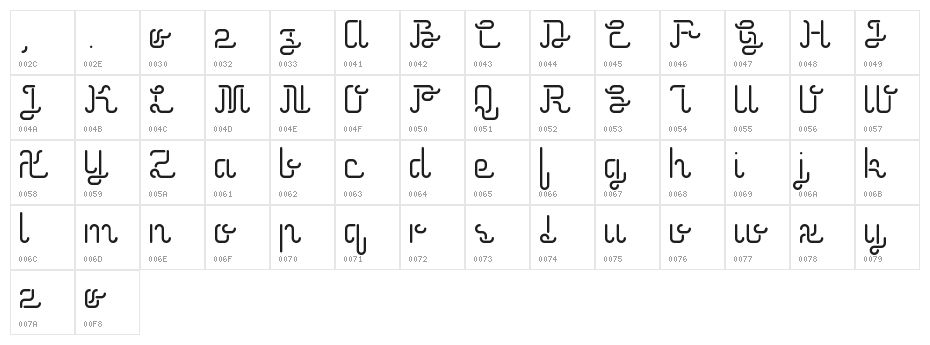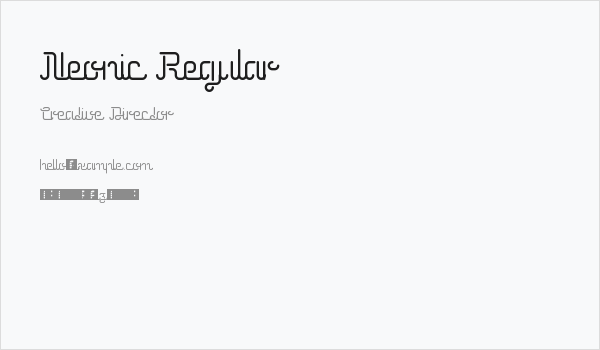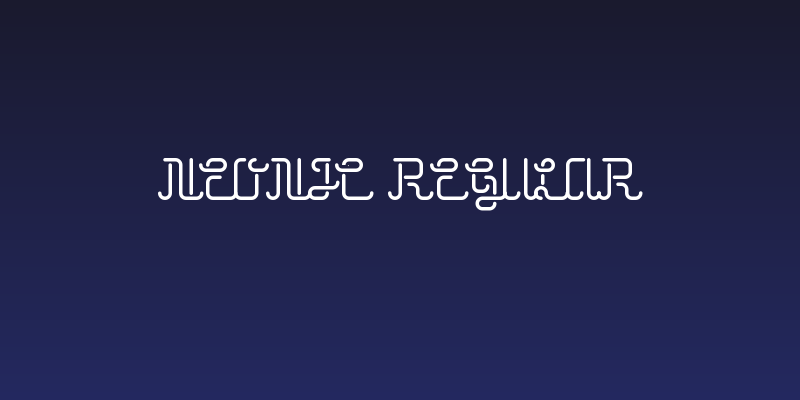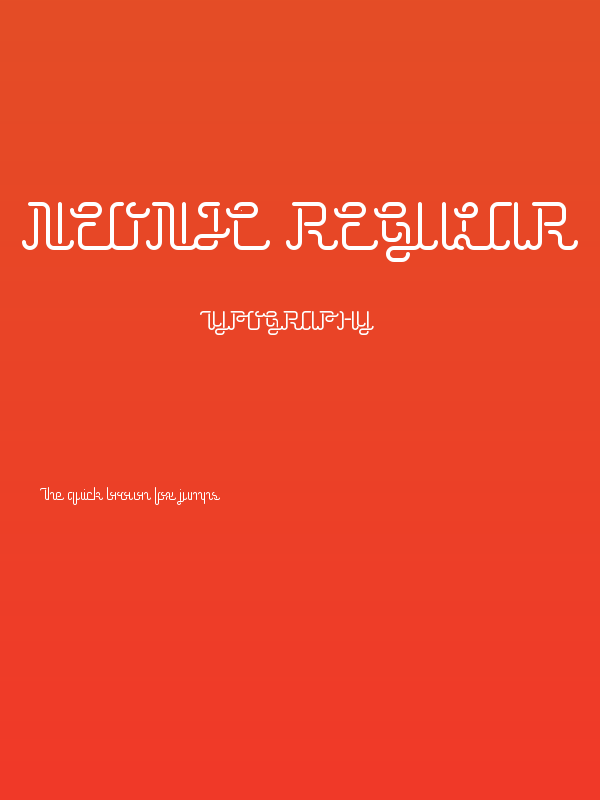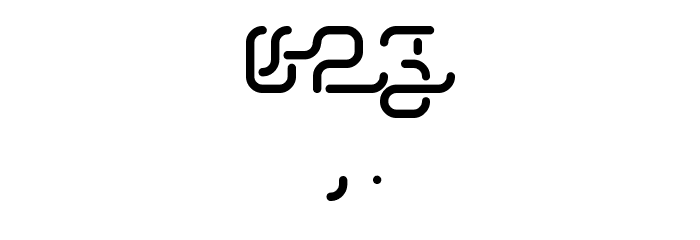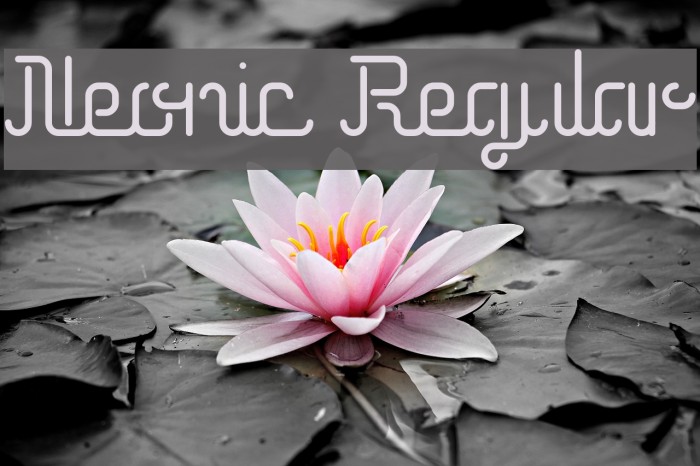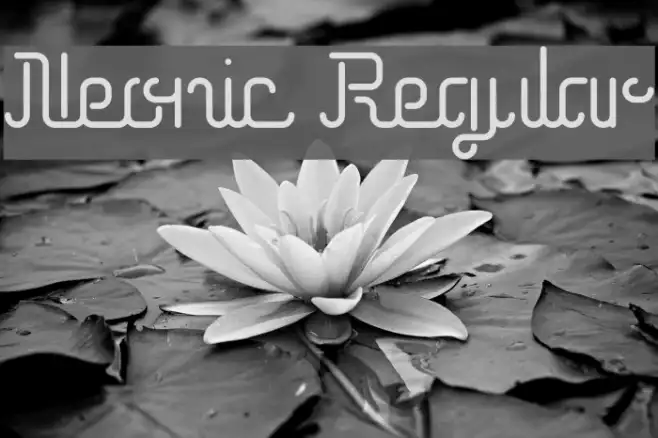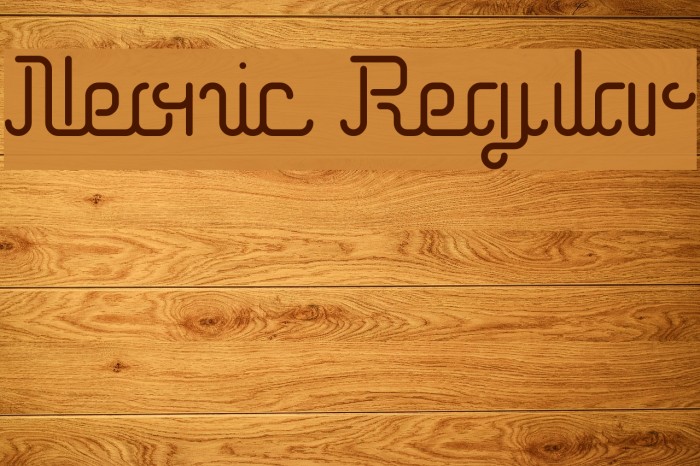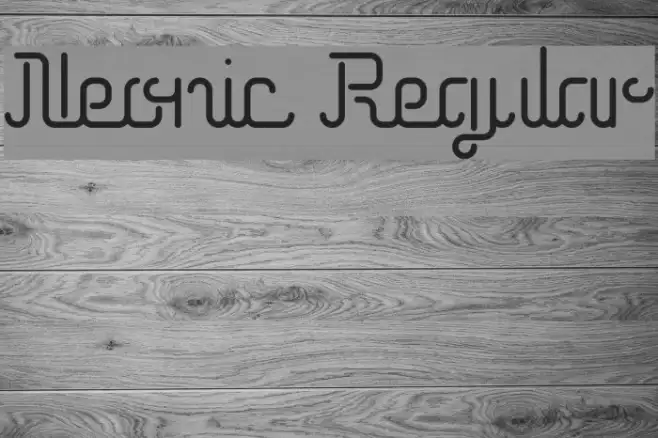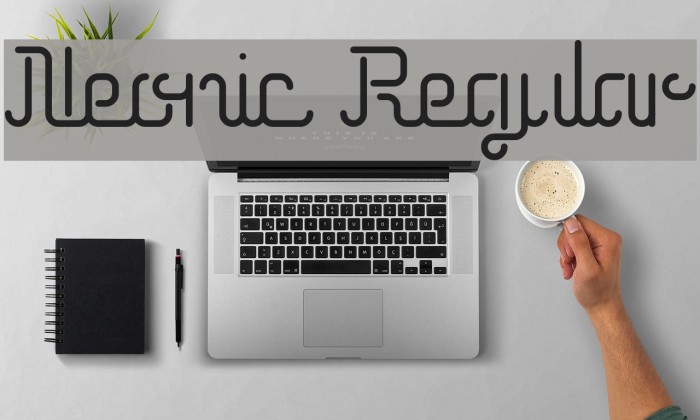
Neonic Regular Font
Neonic Regular Description
This font features a futuristic and geometric design, characterized by its unique and intricate letterforms. Each character is composed of continuous lines and curves, creating a sense of flow and movement. The style is reminiscent of digital or neon signage, with a modern and tech-inspired aesthetic. The uppercase and lowercase letters maintain a consistent height, while the numbers and special characters are designed to complement the overall look. The font's distinctiveness makes it stand out, offering a visually engaging experience.
| Use Case | Logos, Headlines, Digital interfaces |
| Proposed Projects | This font is perfect for projects that require a modern and digital feel, such as tech company branding, futuristic posters, digital art, and video game interfaces. |